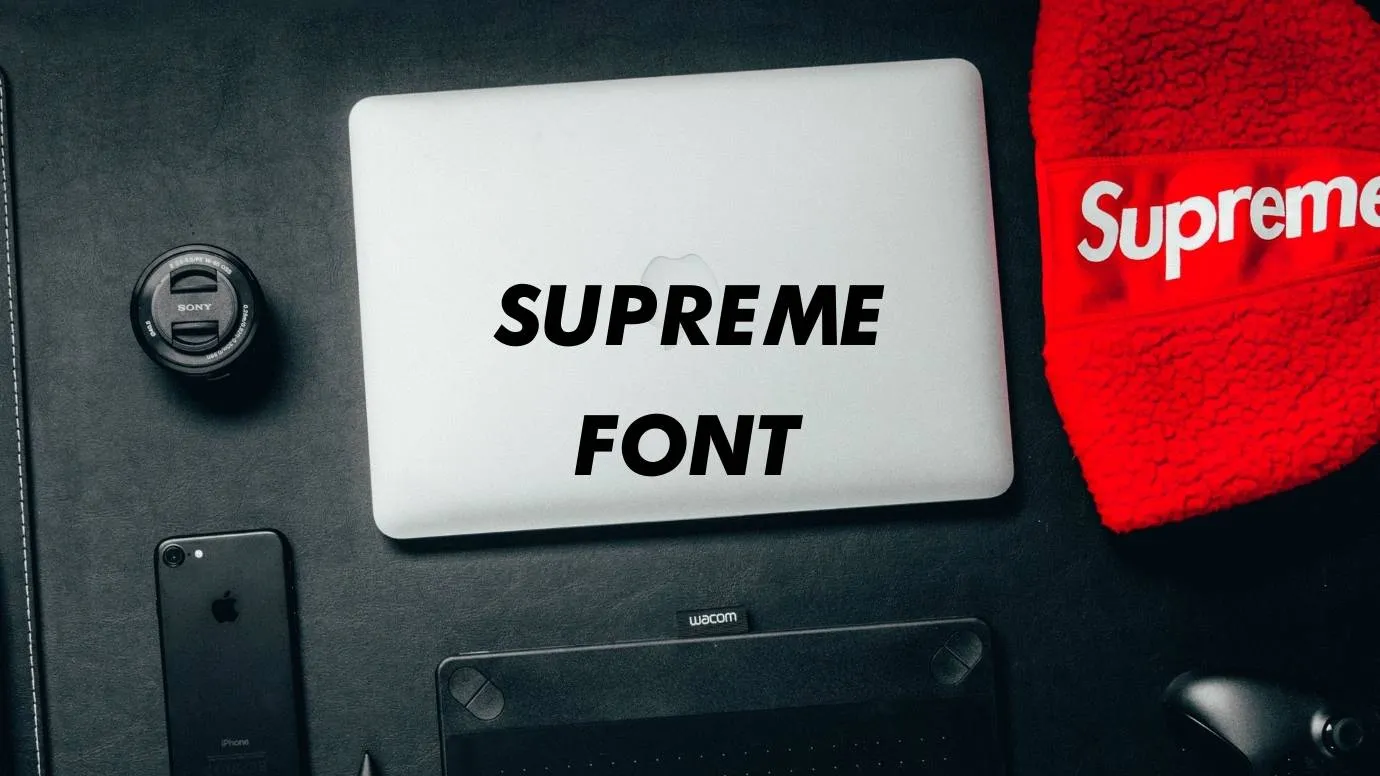
Supreme Font Family is a geometric sans-serif font. This attractive font features white lettering against a red background. Designed by the distinguished Paul Renner, it was first created several years ago and has undergone numerous modifications over time, enhancing its prominence and appeal for use.
The supreme font has many similarities with that logo fonts that have become another reason for its popularity. If we talk about similar fonts then the first name appears to our mind is Futura Font and Curvy Font. Both have many similarities and go hand in hand.
Supreme Font